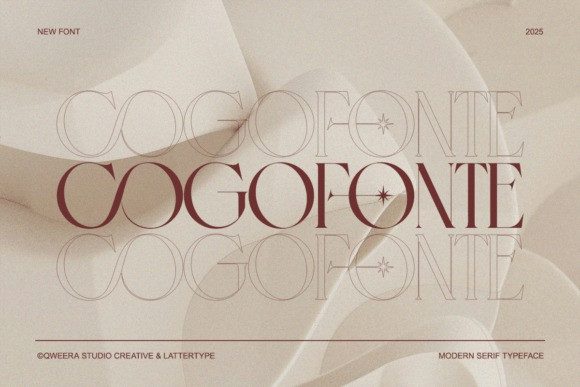
Cogofone Font
Cogofonte Font is a serif typeface with elegant geometric balance and classic sophistication. Its refined contrast and smooth alternates make it perfect for logos, fashion packaging, editorial titles, and creative posters. Cogofonte redefines luxury minimalism in modern serif design.